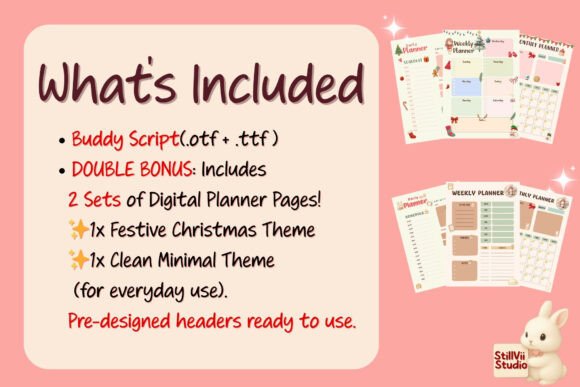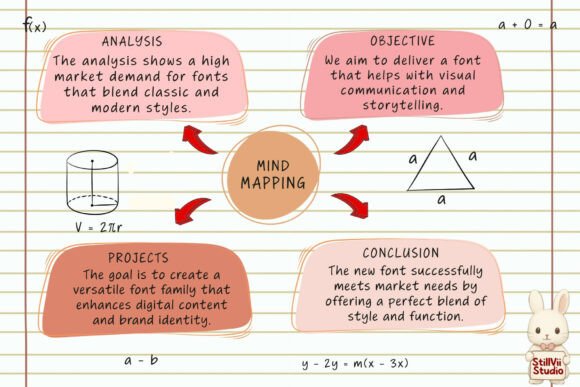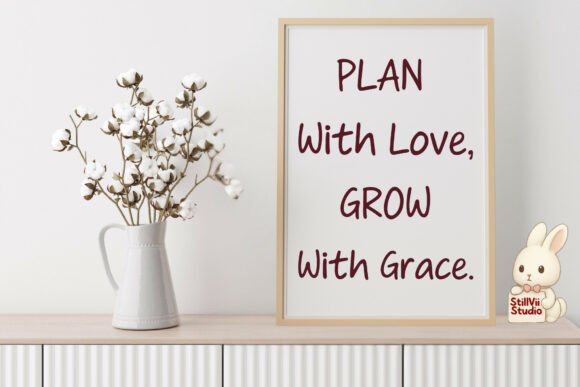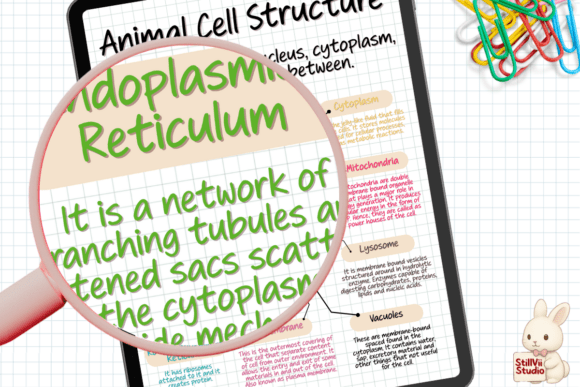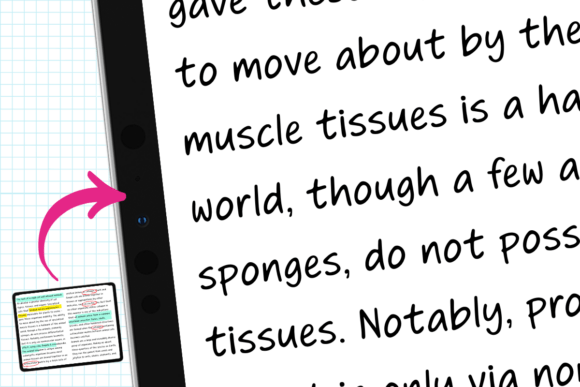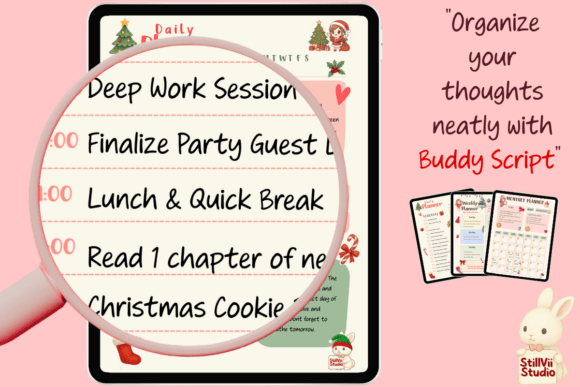
Introducing Buddy Script Font: The Perfect Handwriting Companion for Digital Planners and Creative Notes
In the world of digital planning and creative note-taking, the right font can make all the difference. Imagine having a handwriting font that’s not only neat and cute but also minimal and perfectly legible. Welcome to Buddy Script, a game-changing font designed specifically for digital planners, Goodnotes, iPad journaling, and creative study notes.
The Charm of Buddy Script
Buddy Script is more than just a font – it’s an experience. With its delicate strokes and charming appearance, this handwriting font brings warmth and personality to every project. Whether you’re planning your week, creating study highlights, or designing cute notes, Buddy Script makes every to-do list, mind map, and daily planner entry feel clear, tidy, and inspiring.
Designed for Digital Planners and Creative Minds
Buddy Script is specifically designed for digital planners, Goodnotes, and iPad journaling. Its perfectly legible strokes ensure that your notes, to-do lists, and planner entries are easy to read and understand. This font is perfect for:
- Digital planners: Add a personal touch to your daily, weekly, or monthly planners with Buddy Script’s charming handwriting style.
- Goodnotes: Take your digital note-taking to the next level with a font that’s both fun and functional.
- iPad journaling: Make your journal entries feel more personal and expressive with Buddy Script’s unique charm.
- Creative study notes: Add a touch of personality to your study materials and make learning more enjoyable.
What Makes Buddy Script Special?
So, what sets Buddy Script apart from other fonts? Here are a few key features that make it a standout:
- Neat and minimal design: Buddy Script’s clean and simple design makes it perfect for digital planners and creative notes.
- Cute and charming appearance: This font’s unique charm adds a touch of personality to every project.
- Perfectly legible strokes: Buddy Script’s strokes are designed to be easy to read, making it perfect for notes, to-do lists, and planner entries.
Tips for Using Buddy Script
Here are a few tips for getting the most out of Buddy Script:
- Mix and match: Combine Buddy Script with other fonts or colors to create visually appealing notes and planners.
- Experiment with sizes: Try using different font sizes to add emphasis or create visual interest.
- Add embellishments: Use Buddy Script with digital stickers, washi tape, or other embellishments to add a personal touch.
Buddy Script is more than just a font – it’s a tool for creative expression. With its charming handwriting style, perfectly legible strokes, and minimal design, this font is perfect for digital planners, Goodnotes, iPad journaling, and creative study notes. Whether you’re a designer, crafter, or simply someone who loves to plan and create, Buddy Script is sure to become your new favorite font.